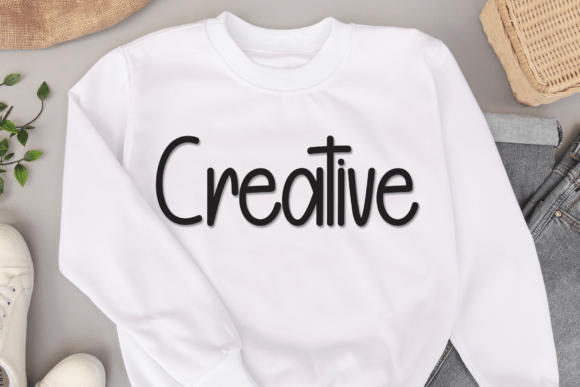
Simple Lettering Font
Your creative voyage is about to get an upgrade with the ‘Simple Lettering’ font. Crafted with painstaking precision, it’s a typographic triumph that radiates a unique allure. Imagine this quintessential touch of elegance gracing your wedding invitations, entrancing every invitee. See how this distinctive typeface imbues your celebratory messages with an iridescent glint. Picture a simple task morphing into a work of art under the influence of its artistic elegance. The ‘Simple Lettering’ font emerges as the perfect companion on your creative voyage, always on standby to sprinkle joy into your every project.